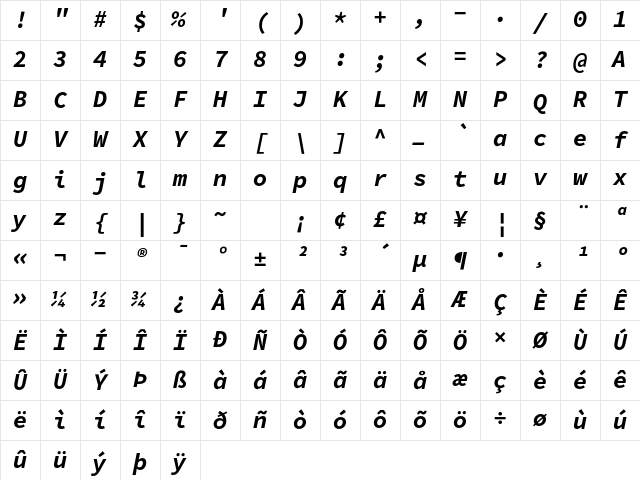
Complete Hasklug Nerd Font Mono Bold Italic glyph index. Displaying only characters natively supported by Hasklug Nerd Font Mono Bold Italic font.
Hasklug Nerd Font Mono uses fixed-width spacing throughout, giving it the structured, systematic character associated with coding environments and technical documentation. The slanted form adds forward momentum and visual energy. Its bold stroke weight gives it real presence on the page.